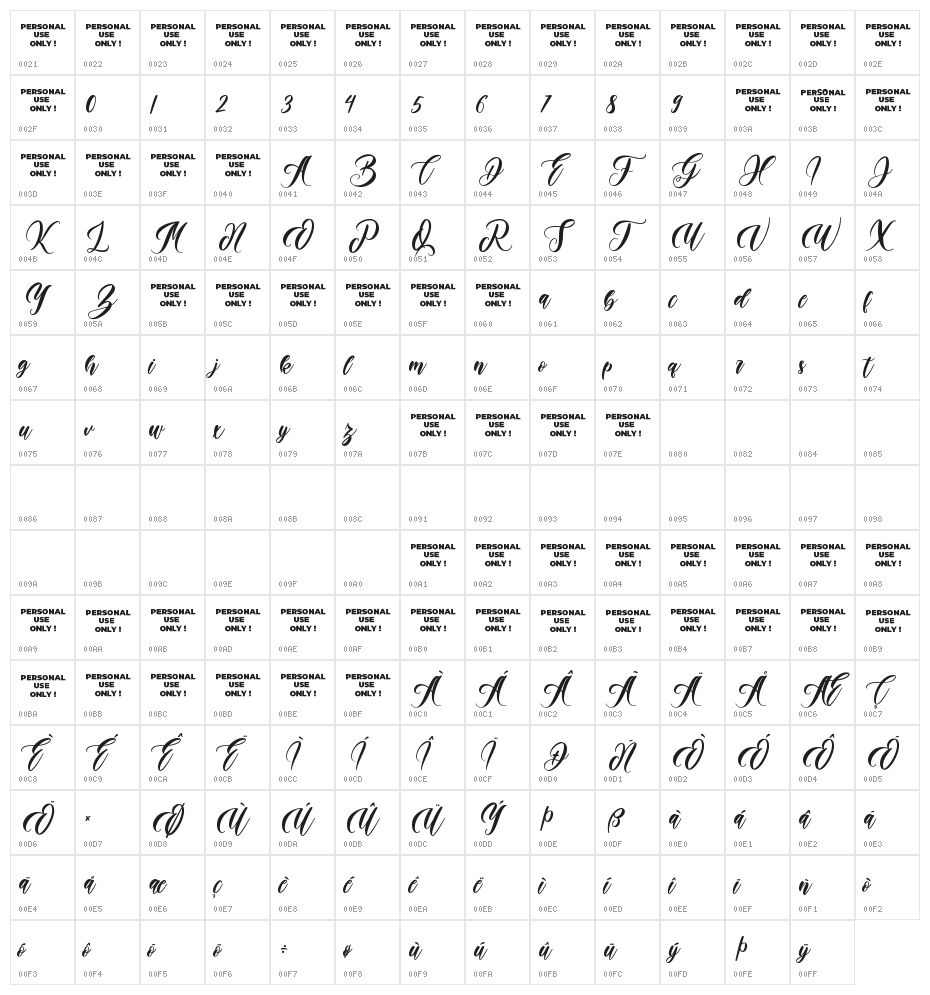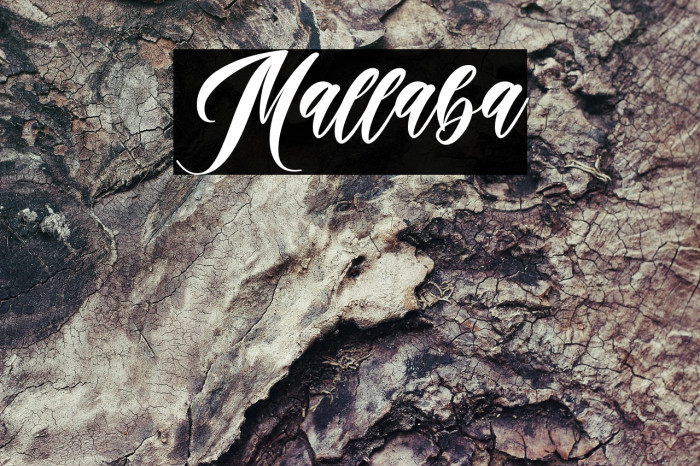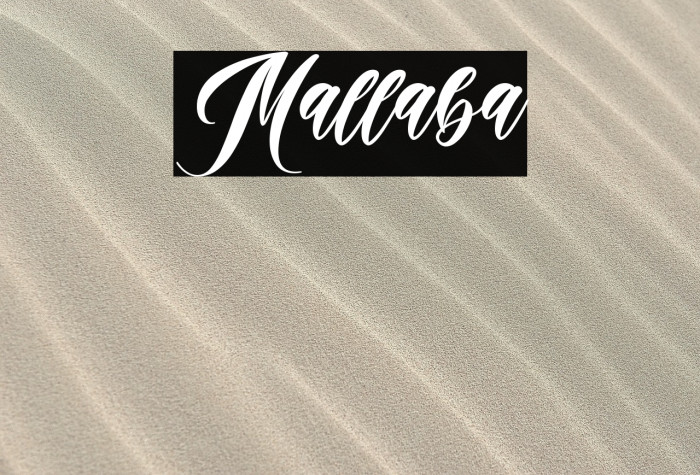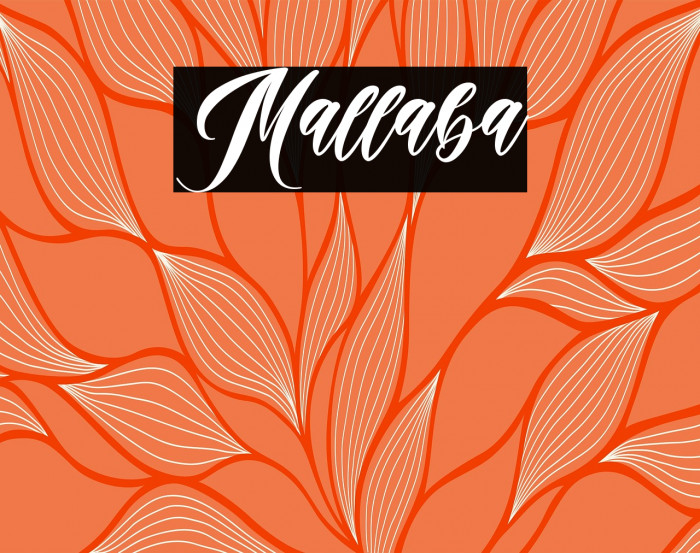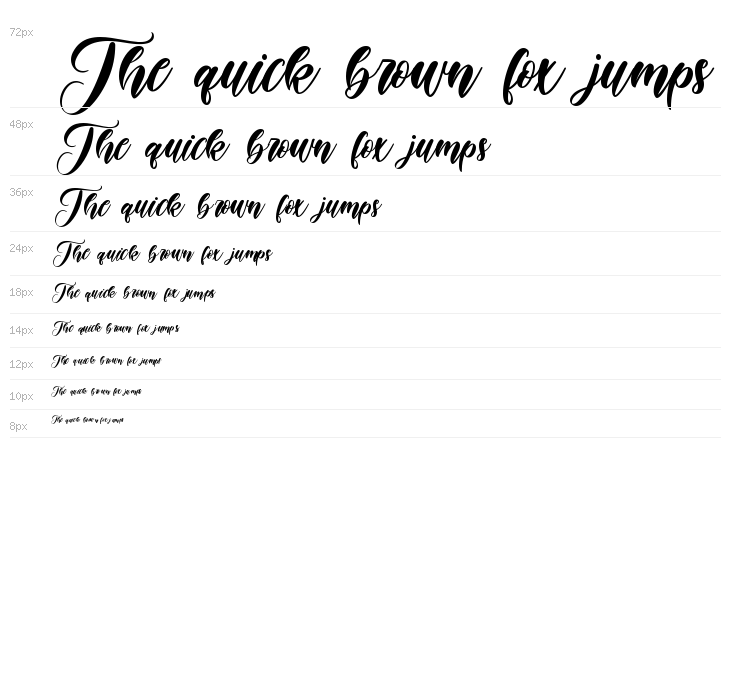
Mallaba Font
Mallaba Description
This elegant script font features flowing, interconnected letters with a graceful and sophisticated appearance. The uppercase characters are adorned with delicate swashes, adding a touch of flair and elegance. The lowercase letters maintain a smooth and consistent flow, enhancing readability while preserving the decorative style. The numerals are designed to match the overall aesthetic, providing a cohesive look across all characters. This font is perfect for projects that require a touch of sophistication and style, such as wedding invitations, branding, and high-end product packaging.
| Overall Style | Elegant |
| Use Case | Logos, Invitations, Branding |
| Proposed Projects | Ideal for wedding invitations, luxury branding, elegant product packaging, and sophisticated event materials. |